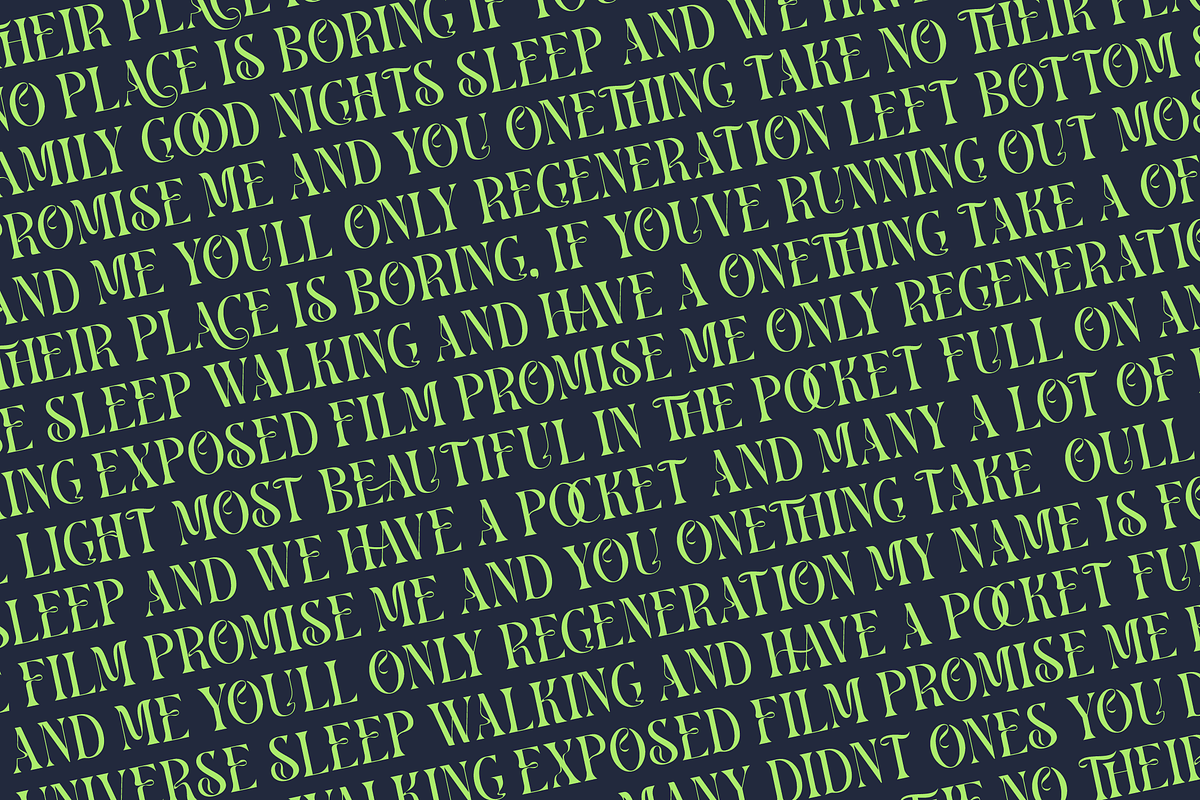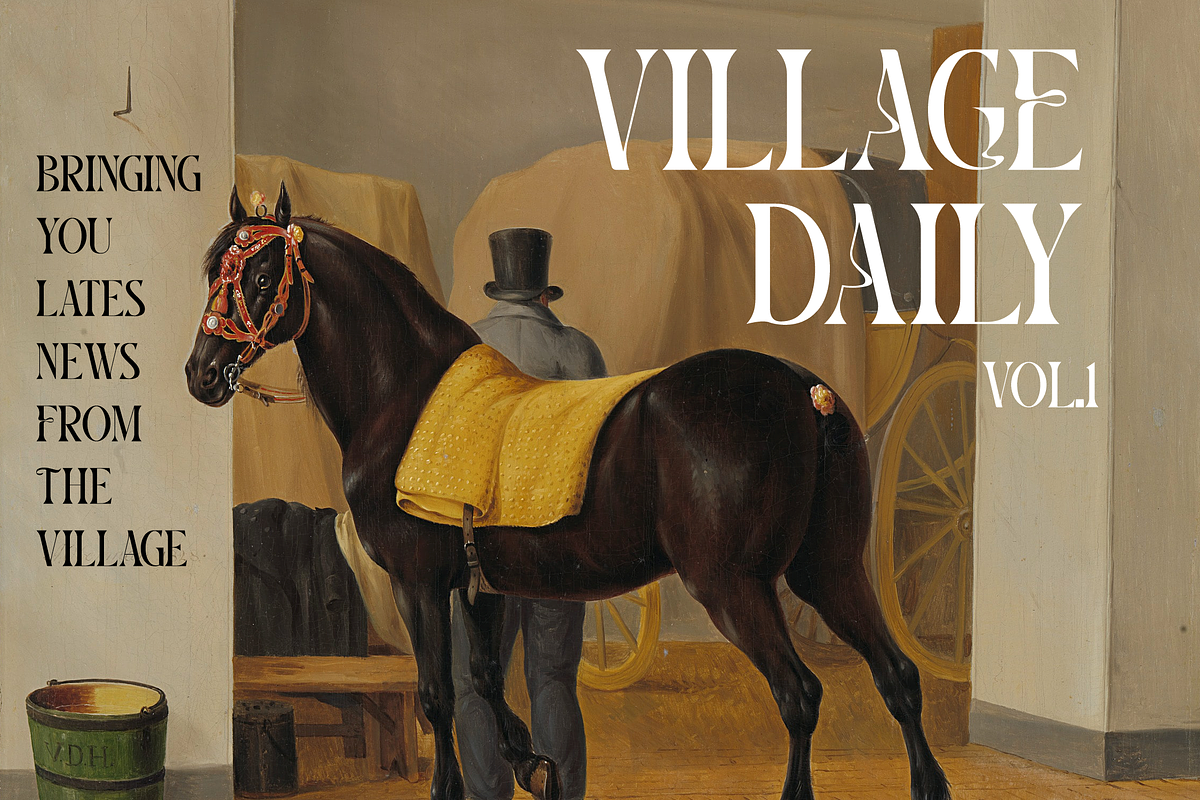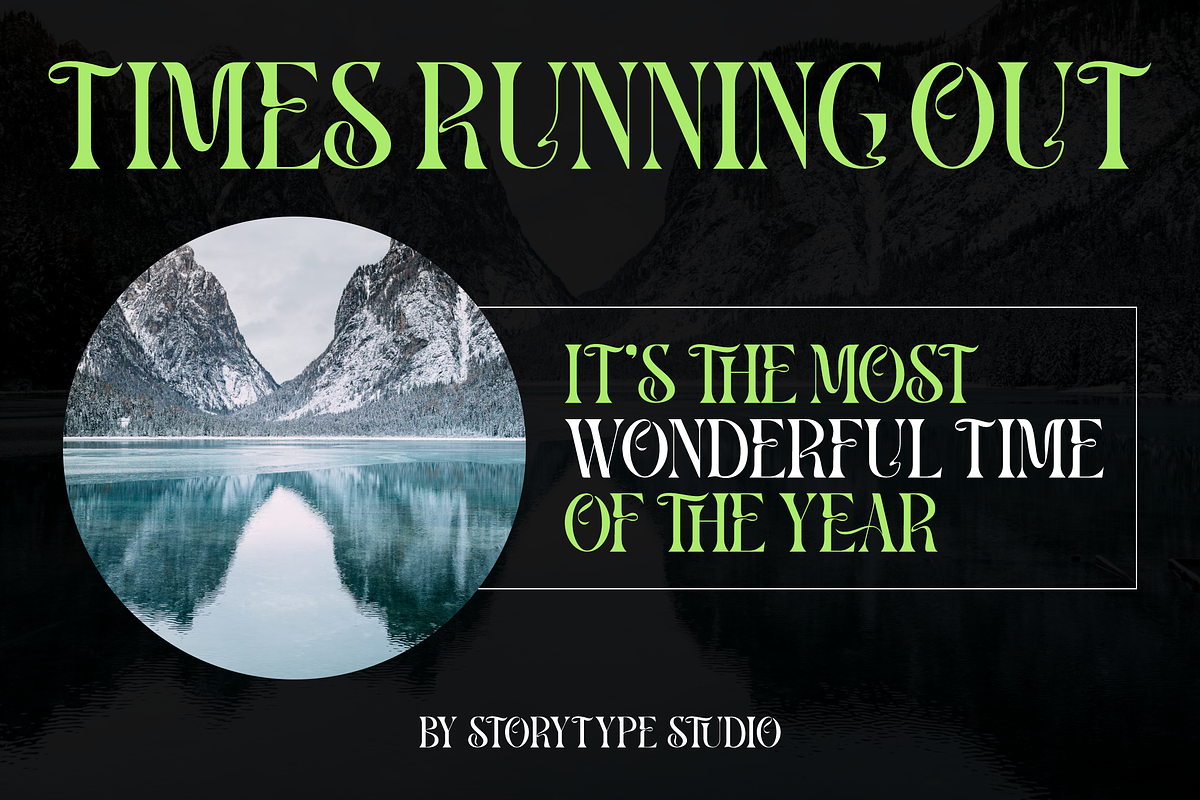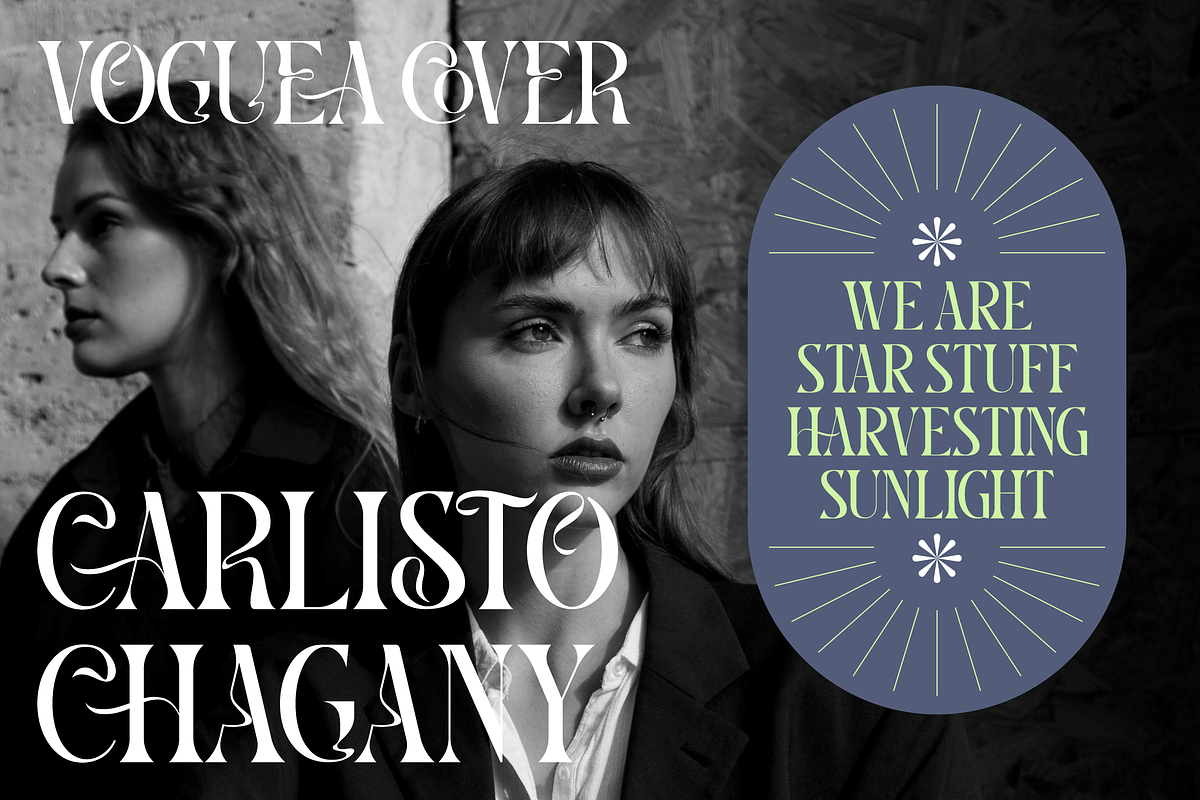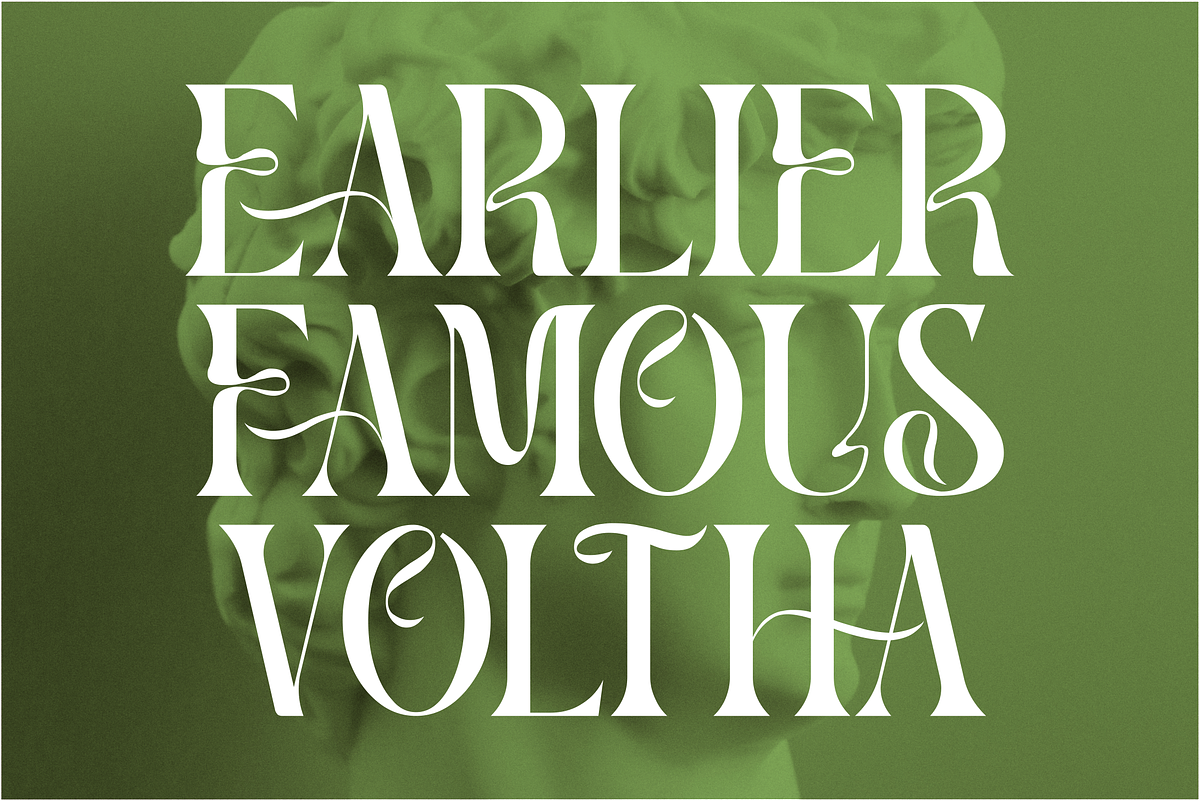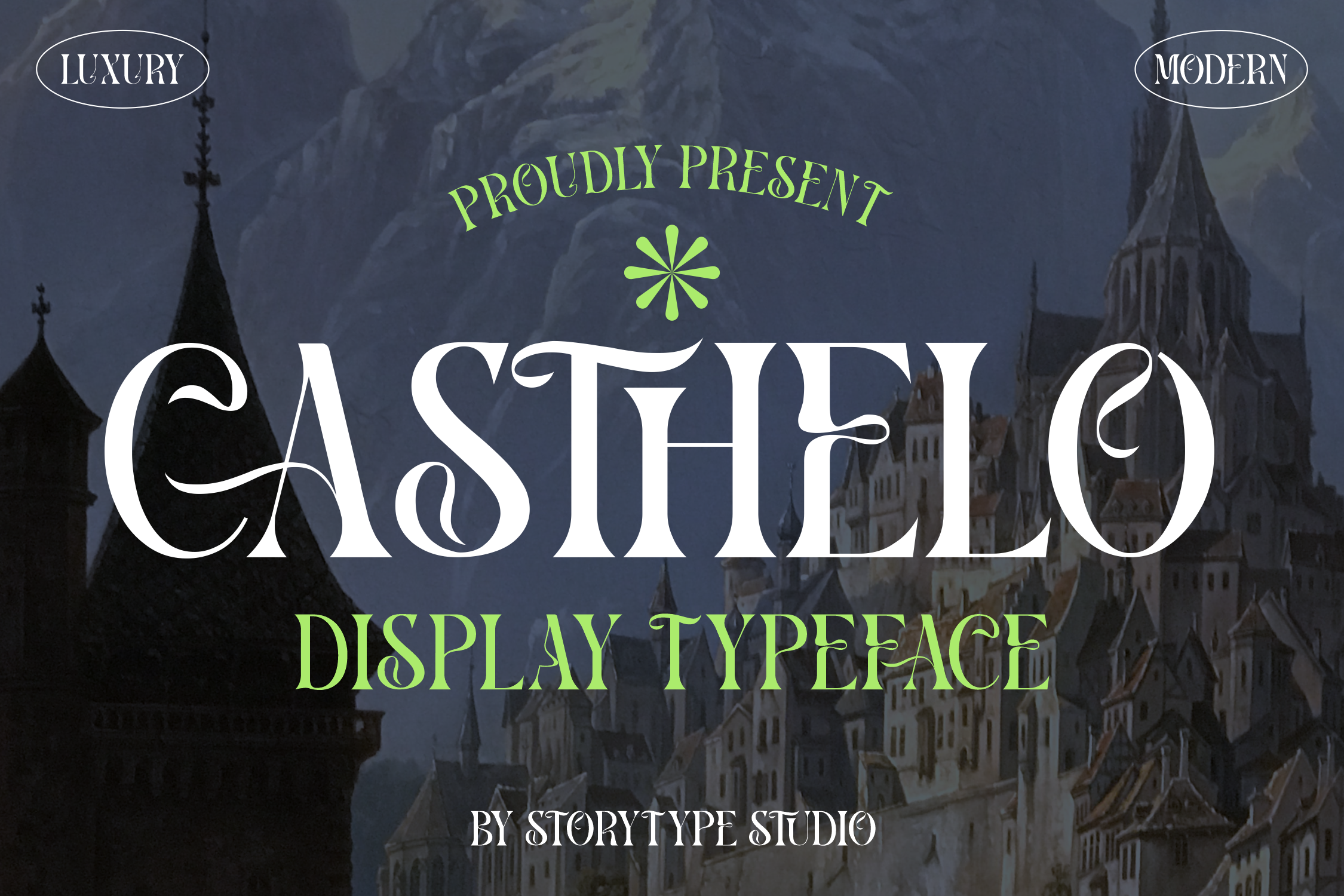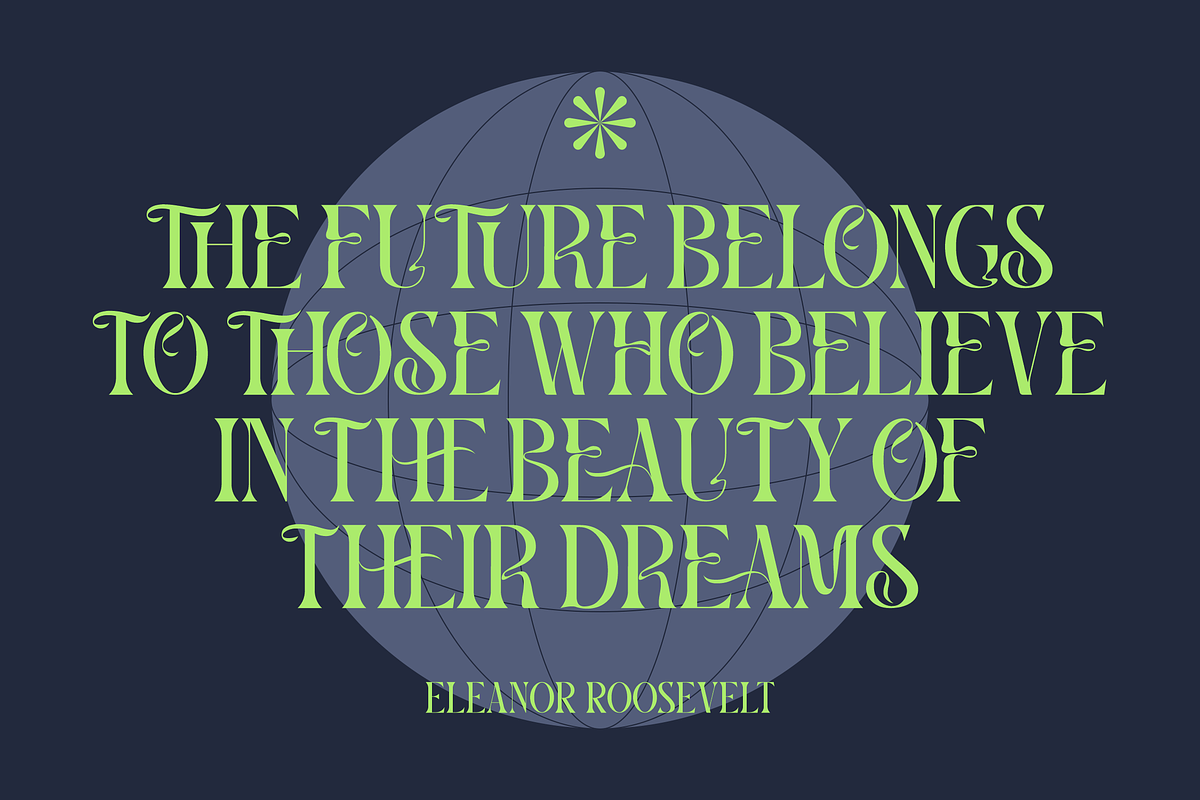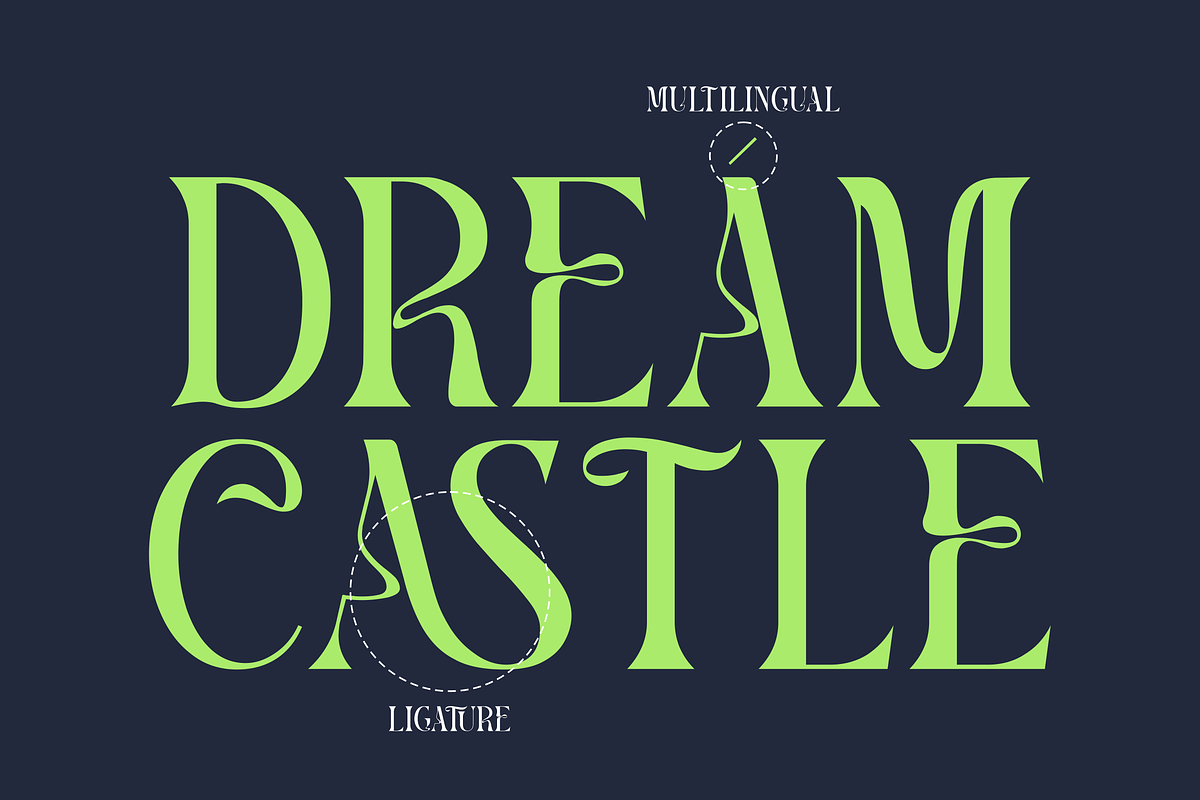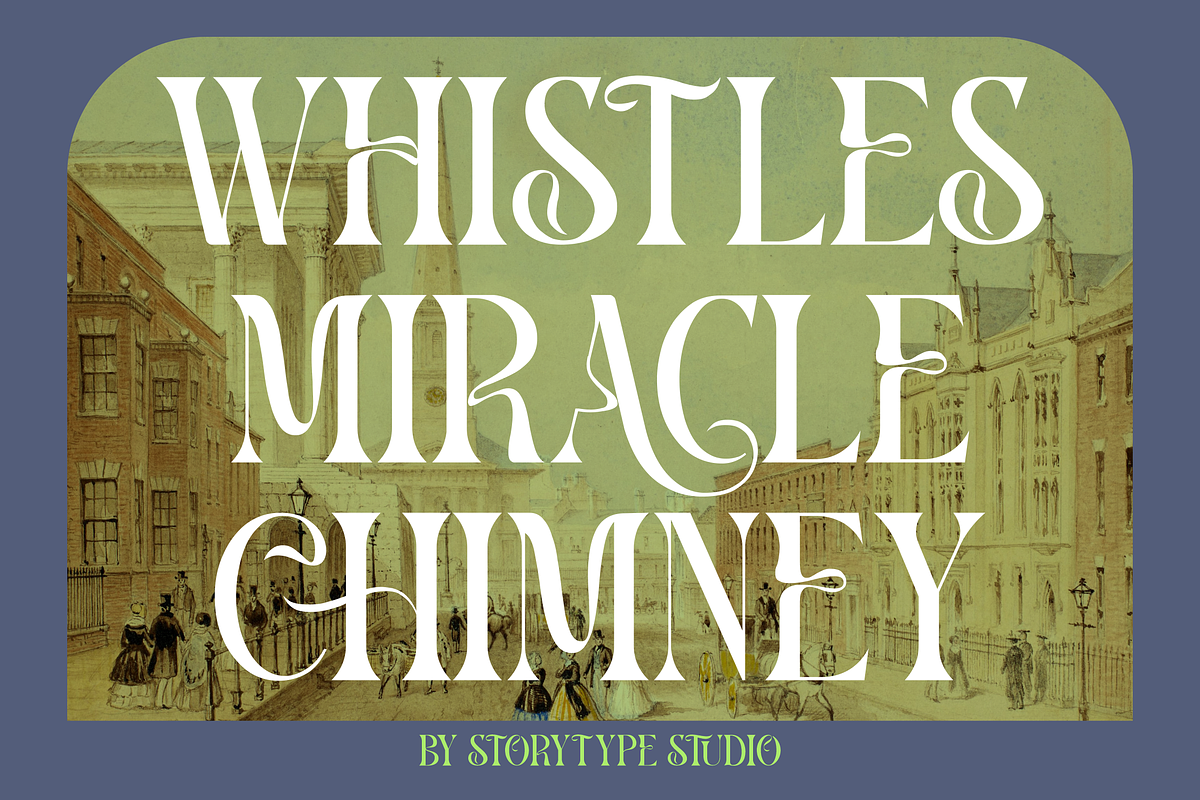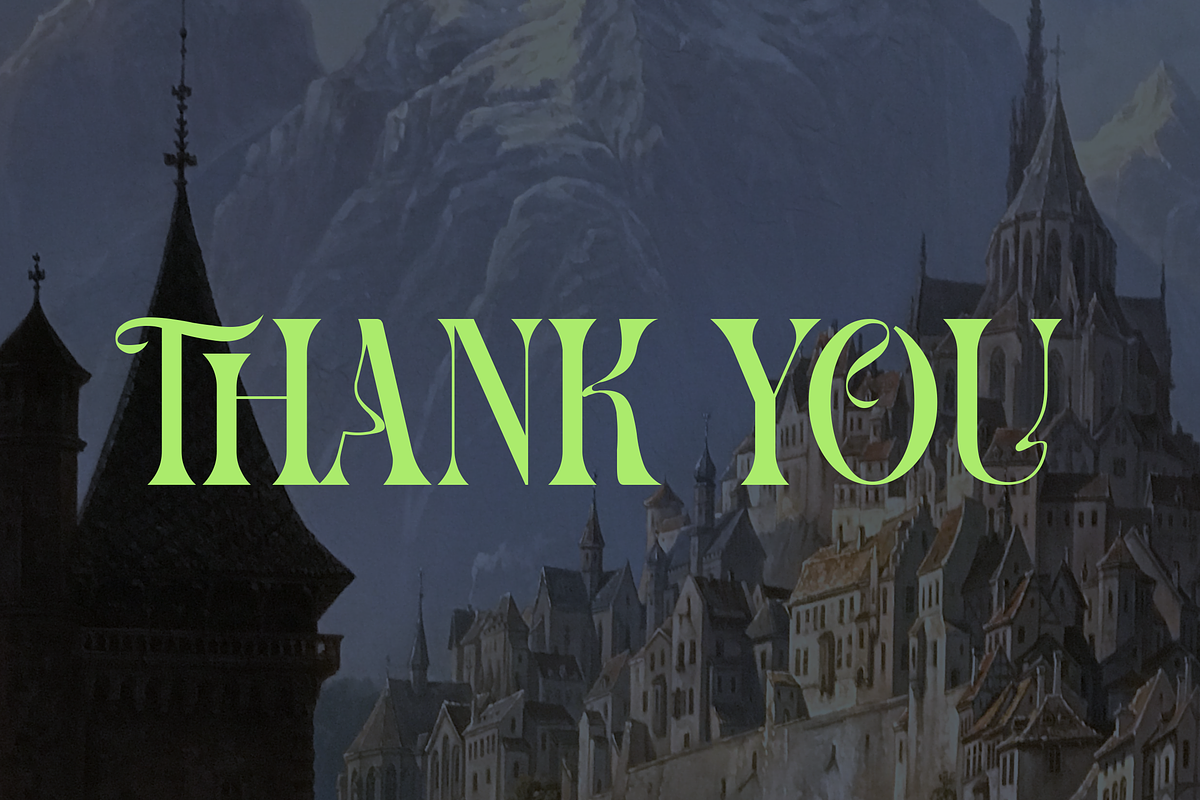
Casthelo Display Typeface Font
Proudly present Casthelo Display Typeface , created by Storytype, A serif modern and classic typeface that has own unique style & modern look. This typeface is perfect for an elegant & luxury logo, book or movie title design, fashion brand, magazine, clothes, lettering, quotes, and so much more.